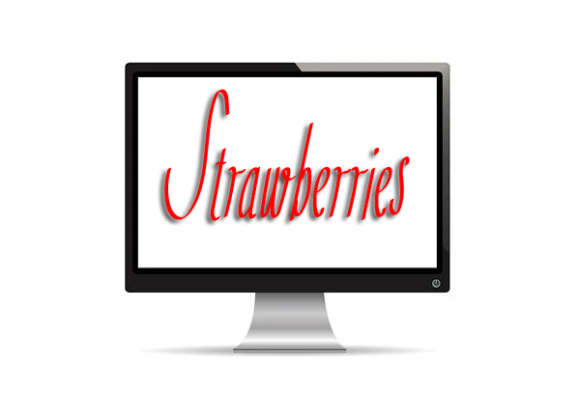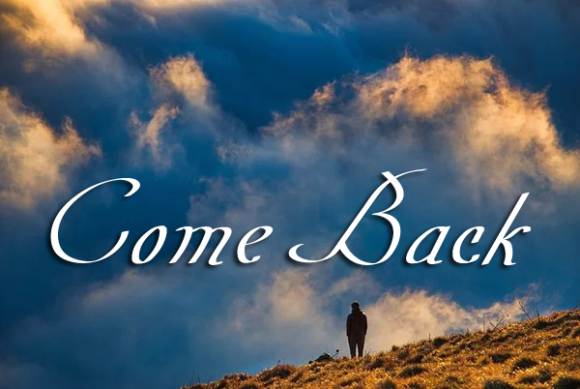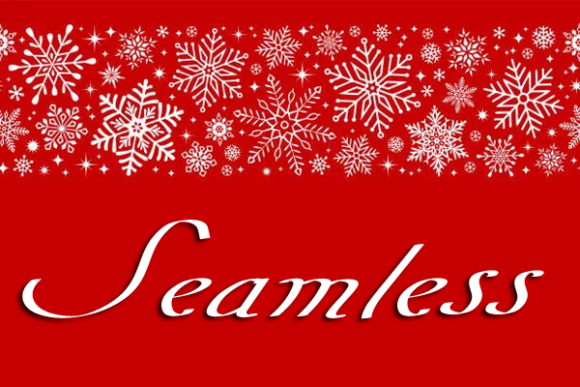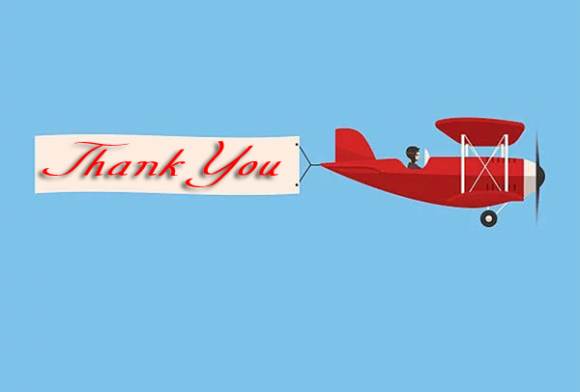
Kharisma Font
About Kharisma Font
Kharisma is a sweet, whimsical and flowing script font. Featuring characters that dance along the baseline, this font will add a luxury spark to any design project that you wish to create!